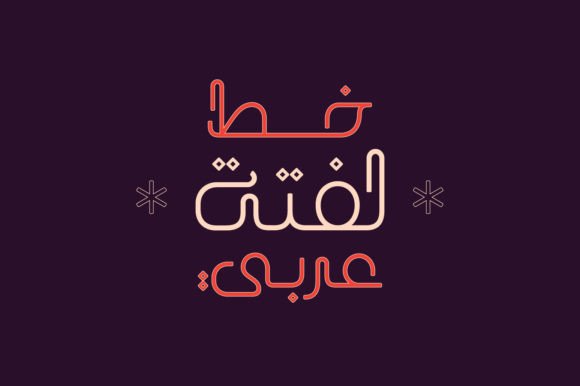
Behold the Enchanting Laftah Font – A Masterpiece of Modern Arabic Typography
Journey into the world of Arabic aesthetics with Laftah, an extraordinary display font that blends intricate charm with modern elegance. Picture this: a mesmerizing dance of thin stems and bold strokes, seamlessly intertwined to create a font that exudes both grace and impact. From the moment you lay your eyes on Laftah, you'll be captivated by its enchanting aura.
Step into a realm of design possibilities as you explore the versatility of Laftah. Whether you're crafting captivating web designs, creating striking advertisements, or adding a touch of sophistication to your print projects, Laftah is your trusted companion. Its unique characteristics ensure that your designs stand out, leaving a lasting impression on your audience.
Unleash the boundless beauty of Laftah and let your creativity flow. Its graceful curves and bold lines ignite the imagination, inviting you to craft designs that inspire, engage, and captivate. Elevate your projects to new heights with Laftah, the font that transforms your vision into a captivating reality.
Embrace the Essence of Arabic Art with Laftah
Discover the essence of Arabic art and culture through the captivating curves and captivating lines of this one-of-a-kind display font. Laftah is more than just a collection of letters; it's a gateway to the rich tapestry of Arabic aesthetics. With every glyph, you'll experience the beauty and depth of this ancient language, adding a unique touch of authenticity to your designs.
Immerse yourself in a world of creativity as you harness the power of Laftah. Its unique design opens up endless possibilities, allowing you to craft designs that resonate with the soul and capture the attention of your audience. From intricate patterns to bold statements, Laftah empowers you to create designs that leave an indelible mark.
Embark on a transformative journey as you explore the depths of Arabic artistry with Laftah. This remarkable font carries the spirit of a rich cultural heritage, inviting you to incorporate its elegance and grace into your designs. With Laftah, you'll discover a new dimension of beauty and expression that will elevate your work to remarkable heights.